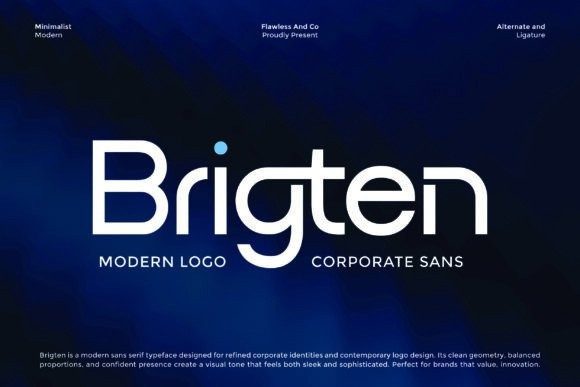
Brigten Font
Brigten Font is a modern sans serif font crafted for professional branding, corporate identity, and sleek logo design. With its clean geometry, precise curves, and refined proportions, Brigten delivers a confident and sophisticated look that elevates any visual communication.